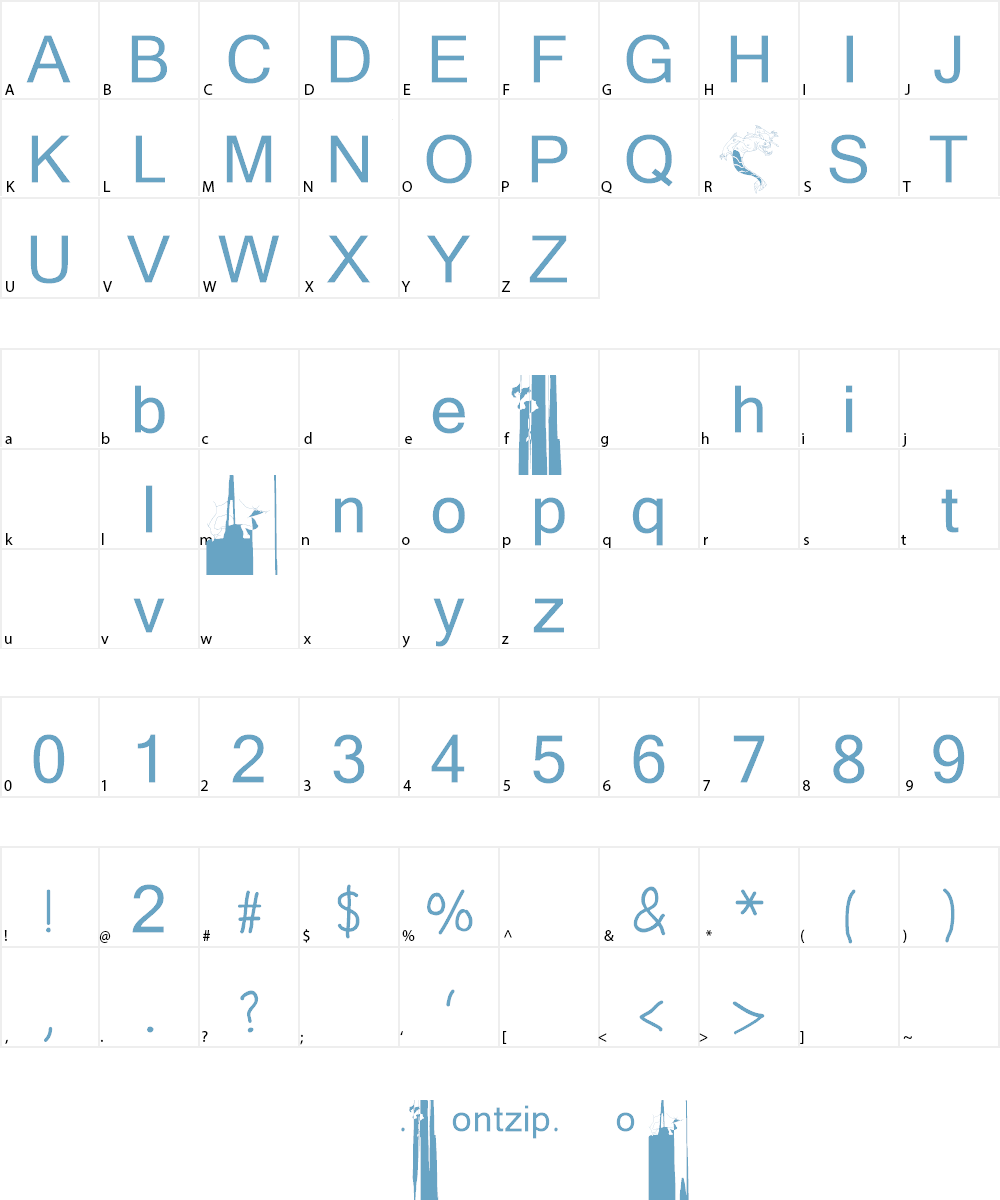
This is a WORK IN PROGRESS, check back later for other versions, if anyone is interested the fonts that are use in Ben 10 Alien Force and Ultimate Alien Logo's are from the Rebirth Font variants from the T-26 font foundry